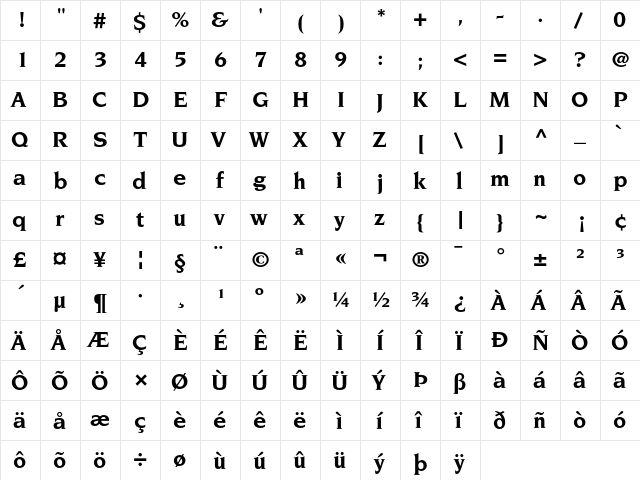
ITC Novarese Bold
Design Context for ITC Novarese Typeface
ITC Novarese offers clean, dependable letterforms without strong stylistic allegiance, making it a practical choice for designers who need flexibility. The heavy weight commands attention and anchors typographic hierarchies.